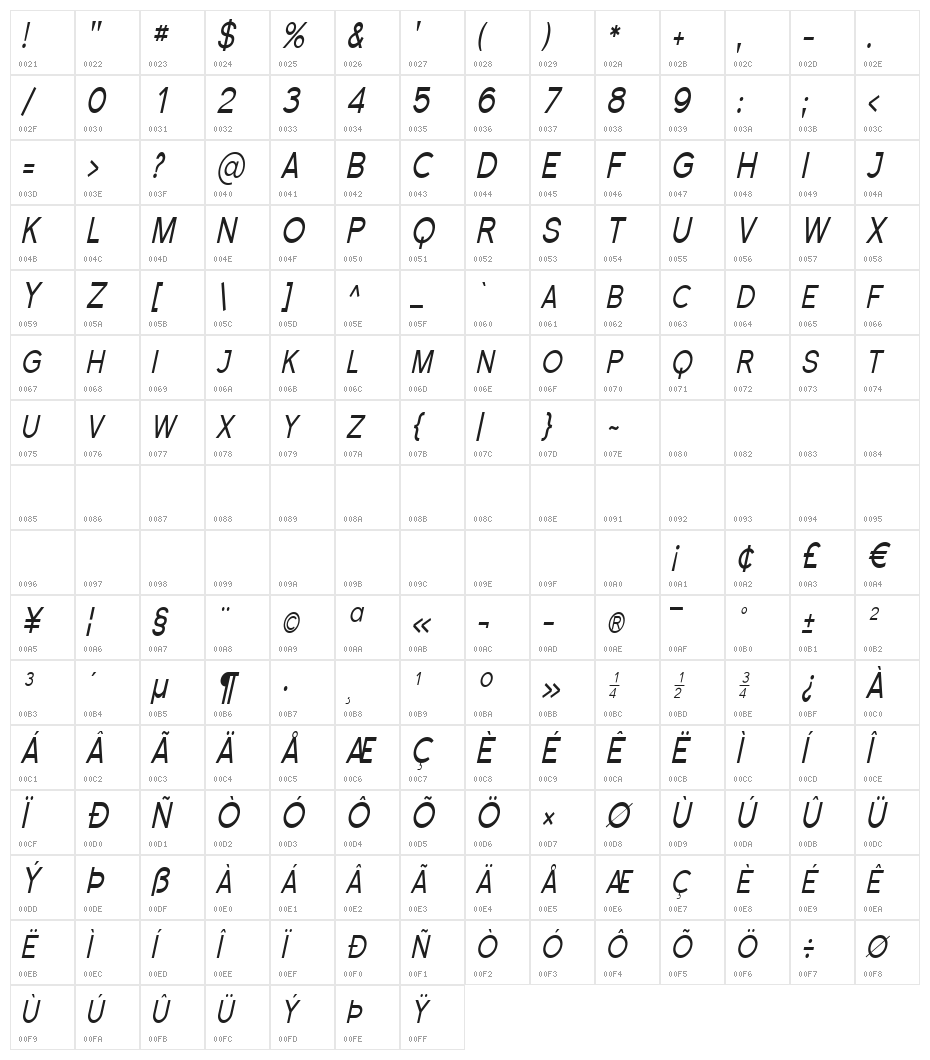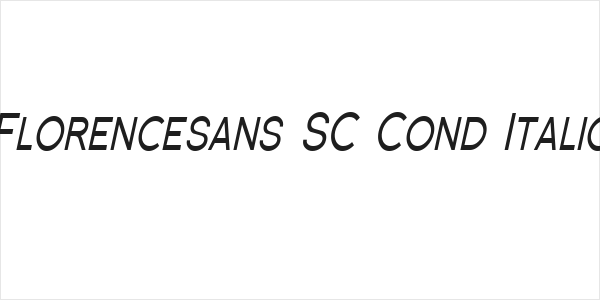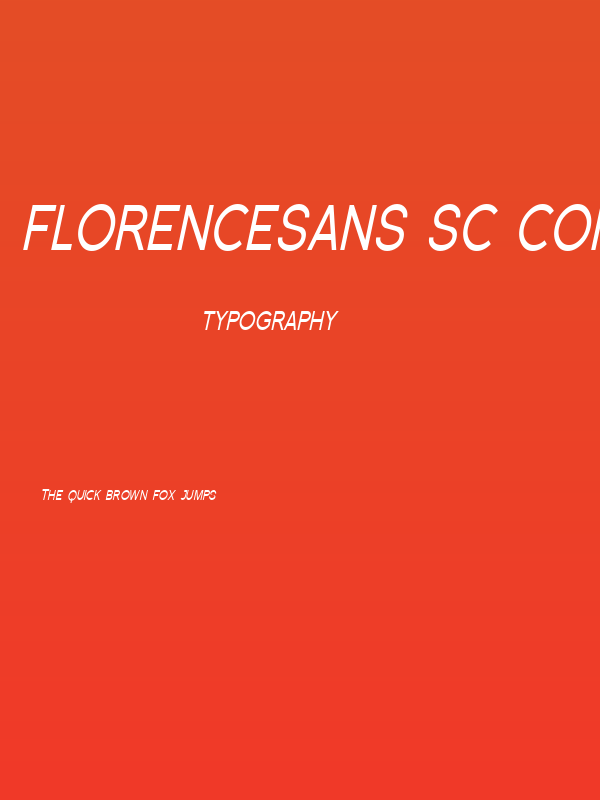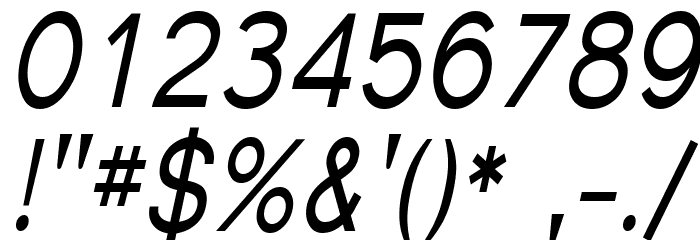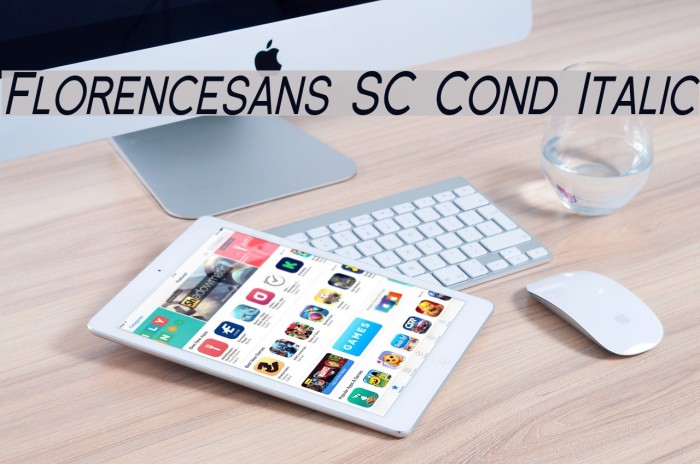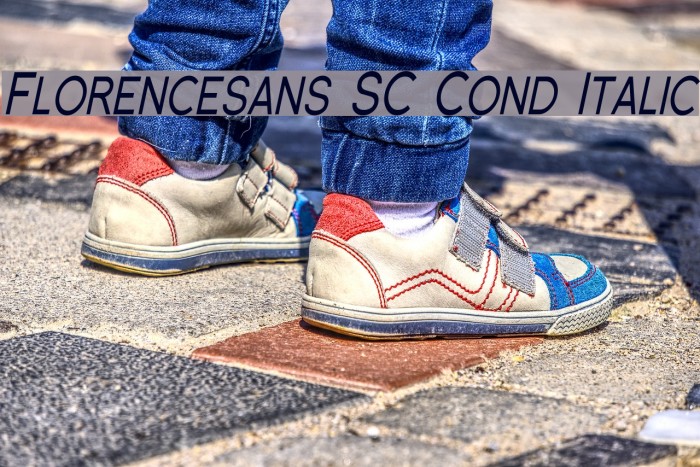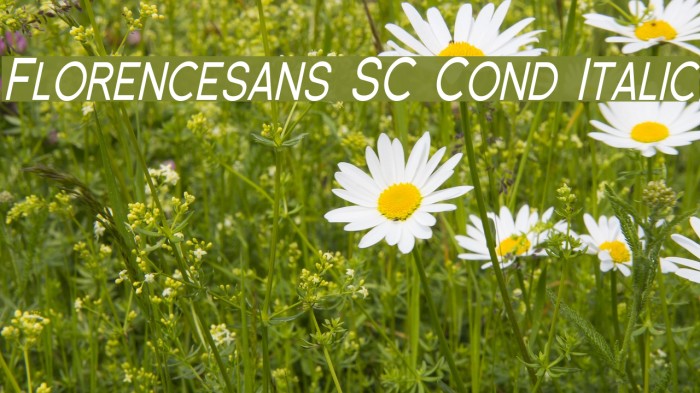
Florencesans SC Cond Italic Font
Florencesans SC Cond Italic Description
This font features a sleek and modern sans-serif design with a condensed width, giving it a streamlined and efficient appearance. The italic style adds a dynamic and forward-leaning character, enhancing its contemporary feel. The characters are uniformly spaced, maintaining a clean and organized look. The stroke contrast is low, providing a consistent thickness throughout each letter, which contributes to its readability and versatility. The font includes a full set of uppercase and lowercase letters, numbers, and a variety of special characters, making it suitable for diverse applications.
| Proposed Projects | Ideal for branding, advertising, and editorial design where a modern and dynamic look is desired. |